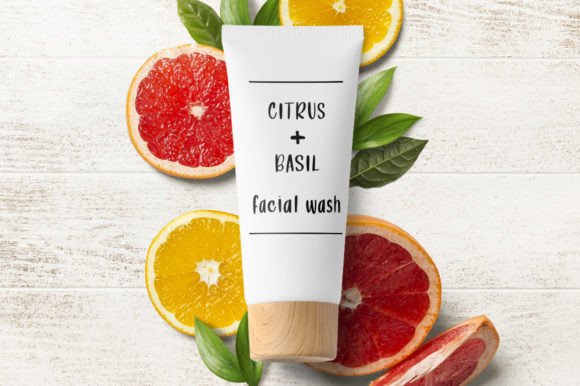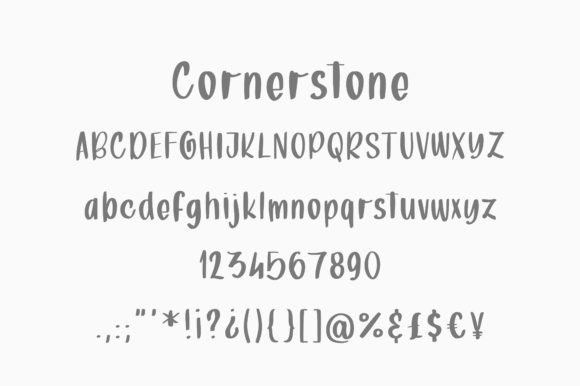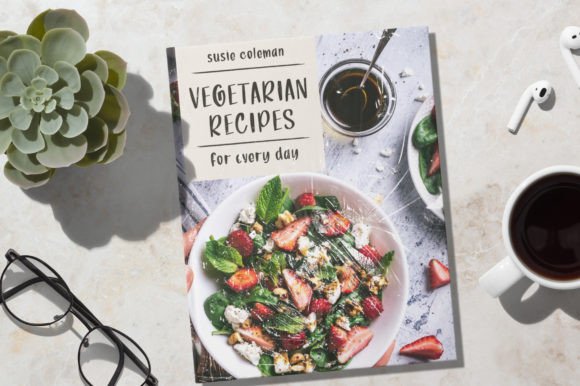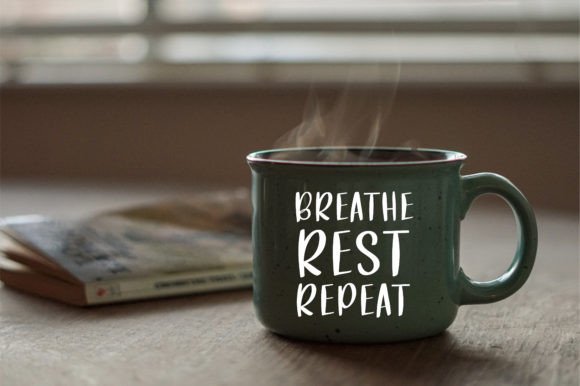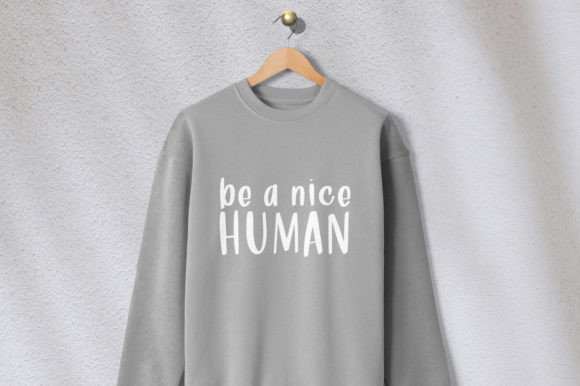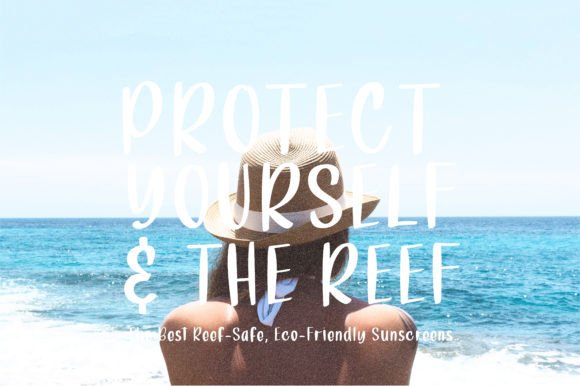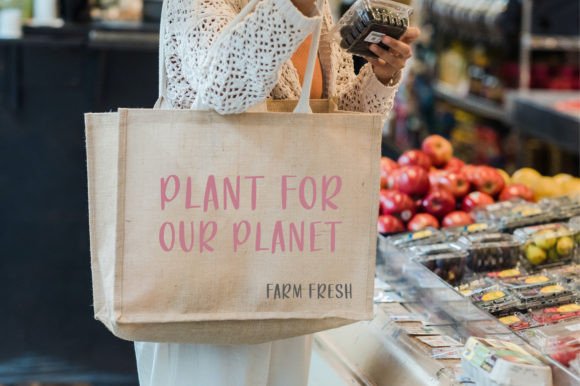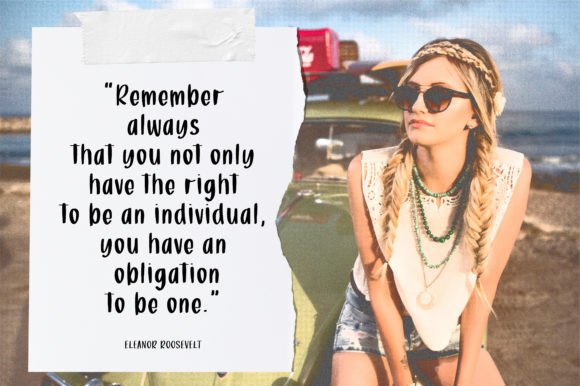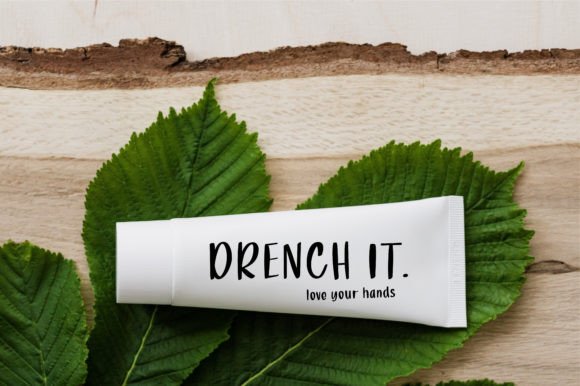
Cornerstone Font
About Cornerstone Font
Meet Cornerstone, your friendly and quirky handwritten font companion. Designed with a smooth and legible style, Cornerstone is crafted for a diverse range of applications, including packaging products, invitation cards, flyers, mockups, event posters, and anything else that demands high-quality vibes. With its beautiful and balanced character, Cornerstone seamlessly integrates into the vast design pool, ensuring a harmonious fit with various creative projects.
The friendliness of Cornerstone shines through in its quirky handwritten charm. The smooth lines and legible structure make it not only visually appealing but also a versatile choice for a wide array of design needs.
For packaging products, Cornerstone adds a touch of approachability that resonates well with consumers. Its friendly demeanor enhances the overall visual appeal, turning ordinary packaging into an engaging and memorable experience.
Invitation cards come to life with Cornerstone, as its quirky handwriting injects personality and warmth into your event communications. The smooth and balanced characters make the text easily readable while adding a unique touch to the design.
Flyers and event posters benefit from Cornerstone’s high-quality vibes. The font’s versatility allows you to convey your message with a touch of friendliness, capturing the attention of your audience and leaving a positive impression.
In the realm of mockups, Cornerstone brings a distinctive and charming character that complements various design concepts. Its adaptability makes it a reliable choice for adding a personal touch to visual presentations.
Cornerstone is not just a font; it’s a design asset that enhances the overall aesthetic of your projects. Its beautiful and balanced character ensures a seamless fit within the large design pool, making it a valuable addition to your creative toolkit.
In summary, Cornerstone is your go-to choice when you need a friendly and quirky handwritten font. Its smooth and legible style, coupled with a beautiful and balanced character, makes it a versatile option for a multitude of design applications. Let Cornerstone add a touch of charm to your creations, turning them into visually appealing and memorable pieces.